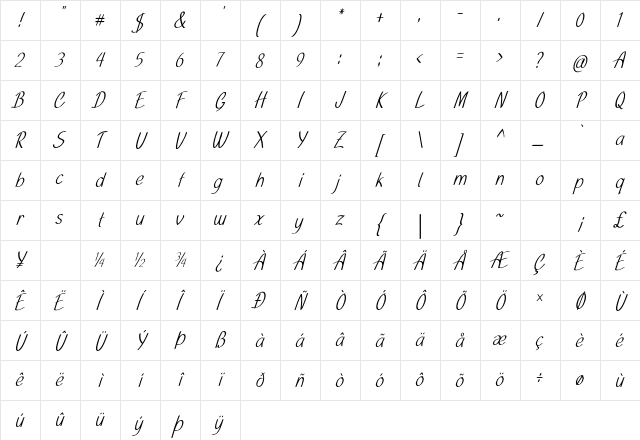
Tinsel is a composed and adaptable typeface that performs quietly and consistently across a wide range of design contexts. The slanted form adds forward momentum and visual energy. Its narrow stance lets it pack a punch even in space-constrained designs.
Pro Tip: Use Tinsel for emphasis, pull quotes, and subheadings where its slanted energy can add rhythm to the layout.